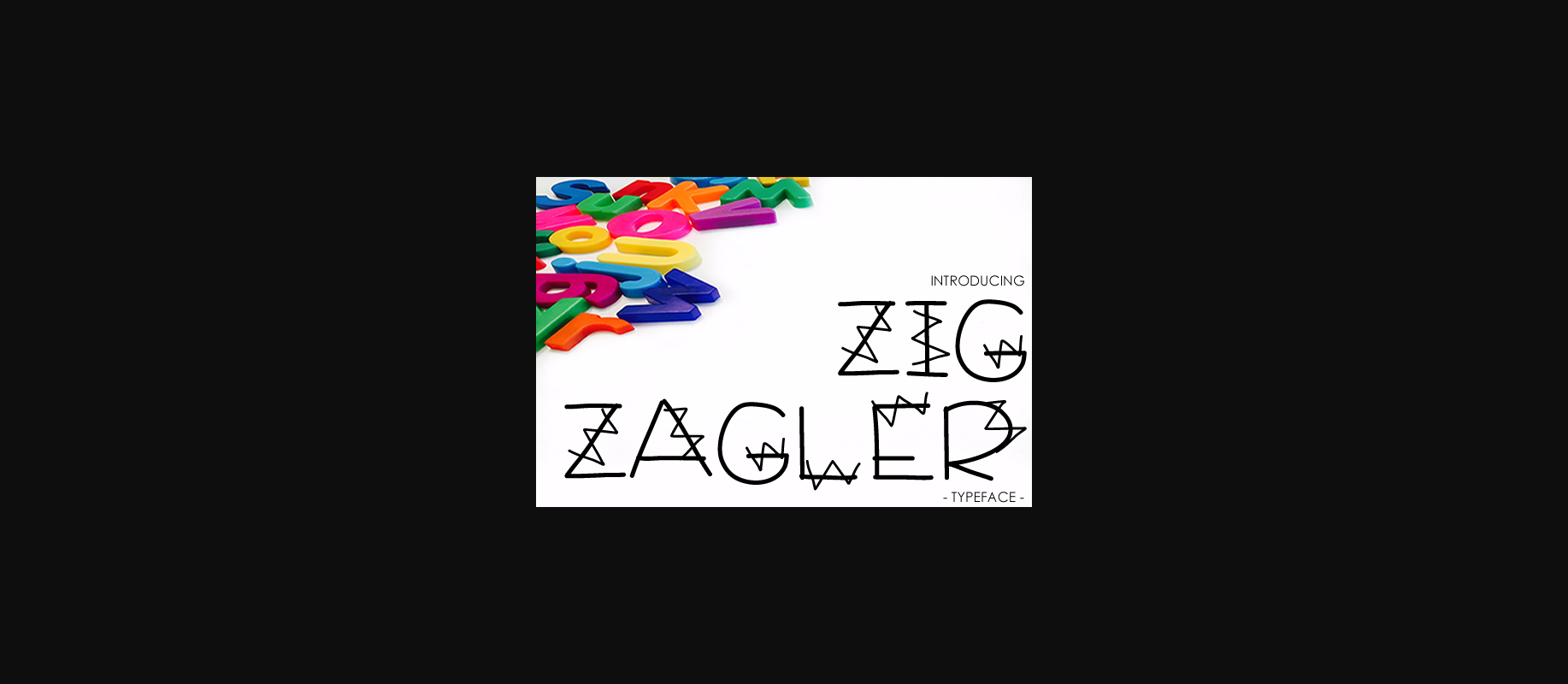
Zig Zagler Font
About Zig Zagler Font
Zig Zagler is a cutesy, fun decorative font that will give your designs a playful edge! This font has haphazard swiggles so you can use it in children’s themes and more!